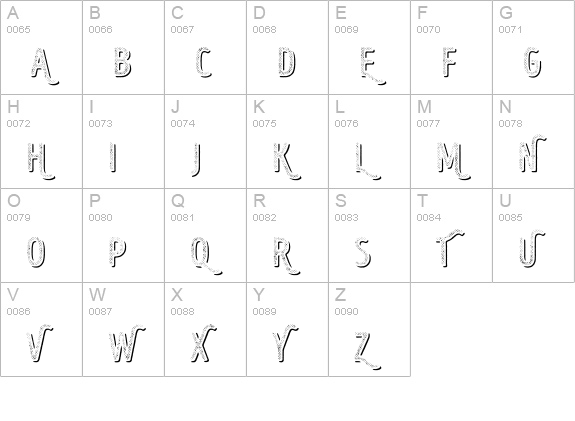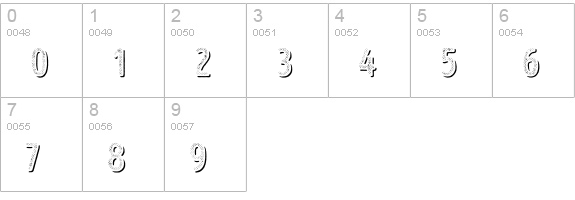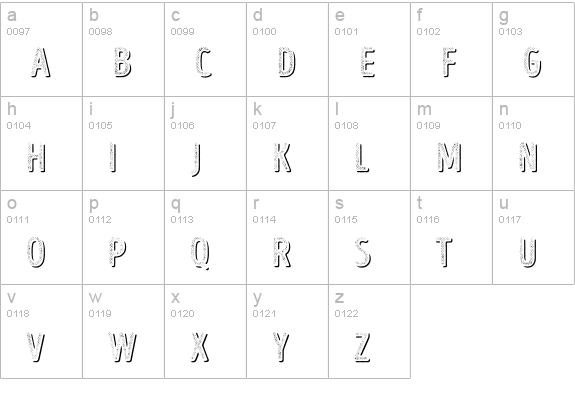
Intro Head B UC H2 Shade Font Details
The Intro Head B UC H2 Shade font is a stunning display font that exudes elegance and sophistication. Its bold and unique design makes it perfect for headlines, titles, and other attention-grabbing text. This font features intricate details and stylish curves that set it apart from the rest. Best of all, this font is available for free download at FontsMarket.com. Whether you're a designer looking to add a touch of class to your projects or a blogger wanting to make a statement with your headings, the Intro Head B UC H2 Shade font is sure to impress. Download it today and elevate your designs with this exquisite typeface.